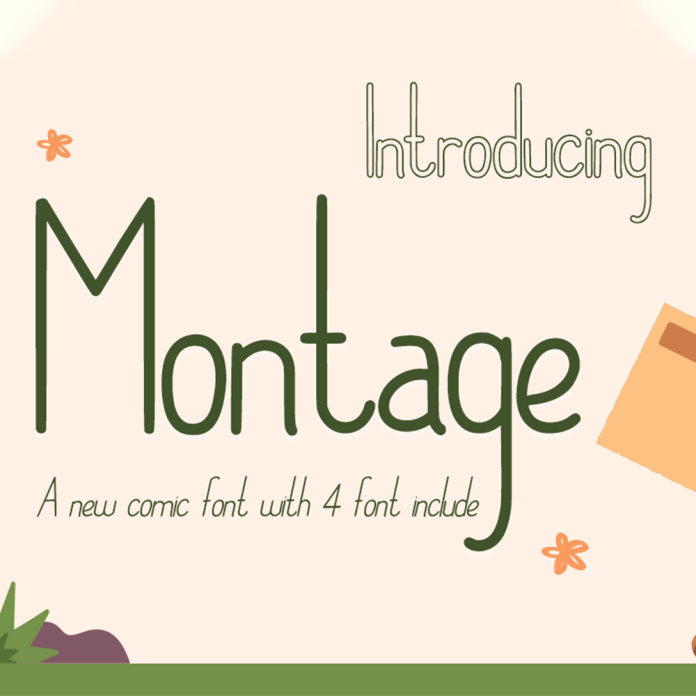
Montage font is a modern and elegant typeface that blends elements of sans serif and script styles. Its key features include sleek lines, fluid curves, and a balance of traditional and contemporary design elements. This versatile font is perfect for branding, editorial design, and any project that requires a sophisticated and stylish look.